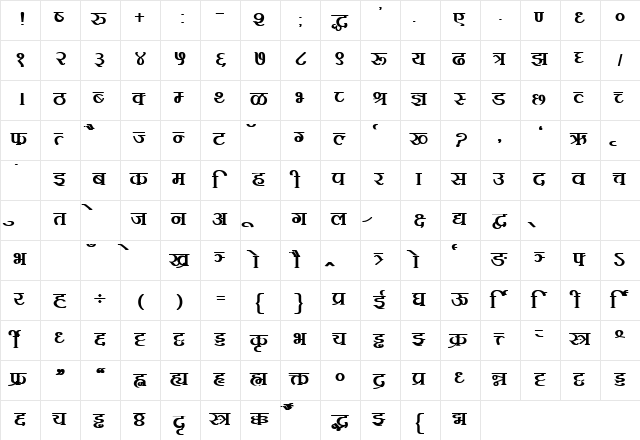
Kruti Dev 101 Bold Font Preview
Kruti Dev 101 Bold
Design Context for Kruti Dev 101 Typeface
Kruti Dev 101 offers clean, dependable letterforms without strong stylistic allegiance, making it a practical choice for designers who need flexibility. The heavy weight commands attention and anchors typographic hierarchies.